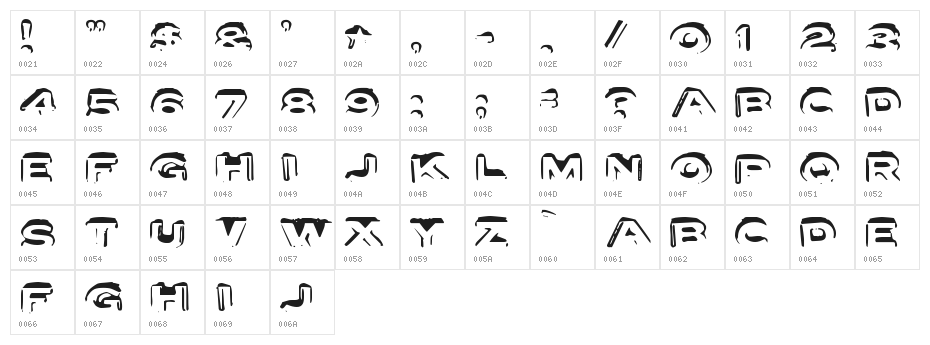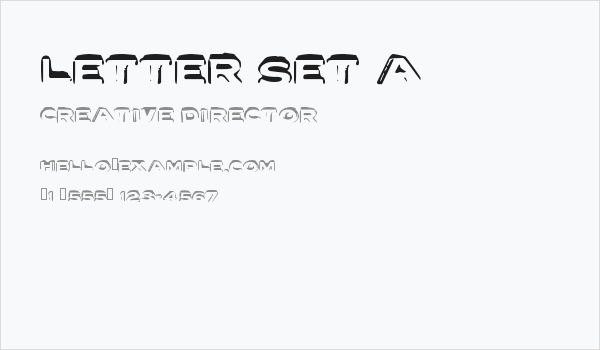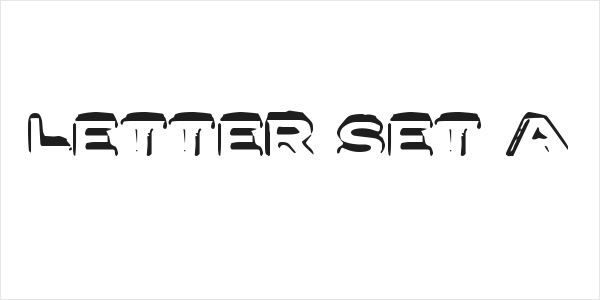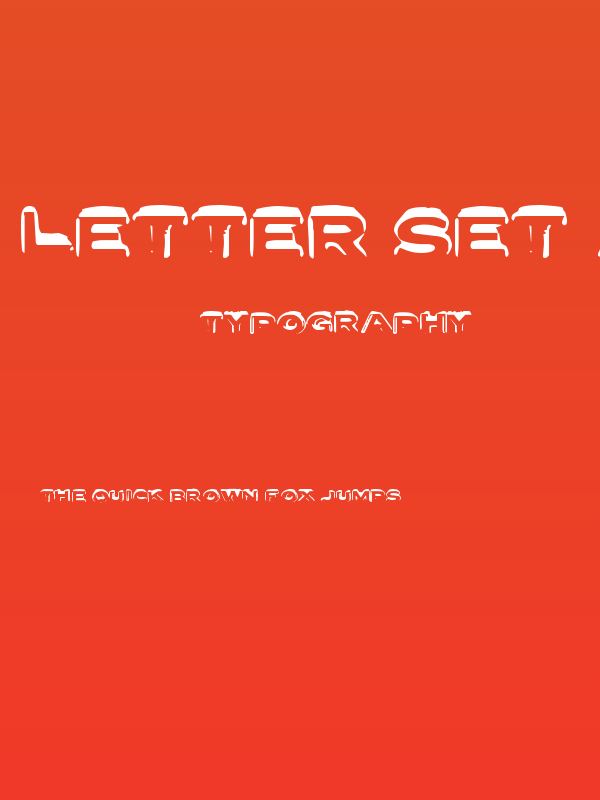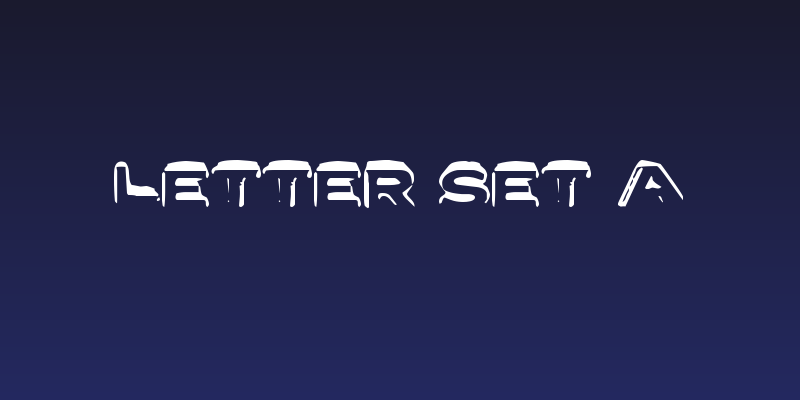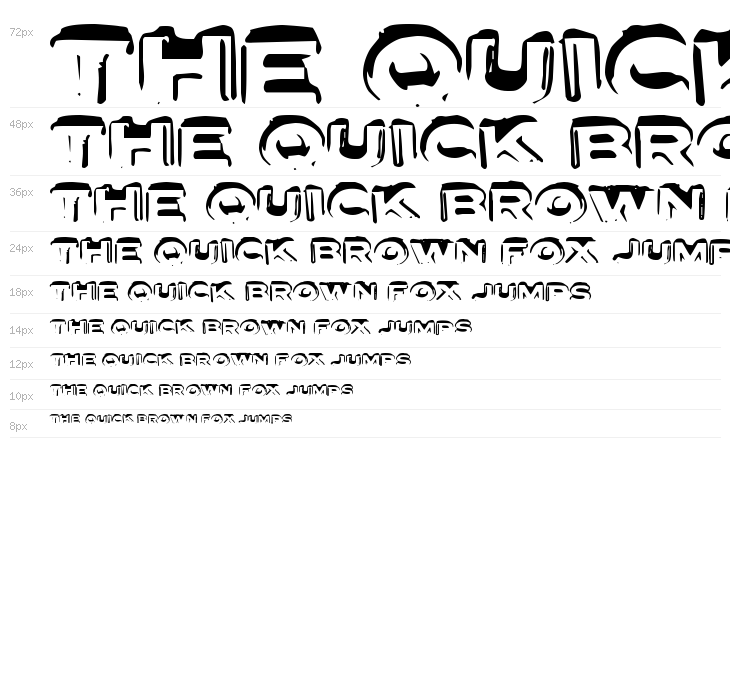
Letter Set A Font
Letter Set A Description
This font features a bold and artistic design with a distressed, grunge-like texture. Each character appears as if it has been partially eroded or splattered with paint, giving it a unique and edgy appearance. The uppercase letters are bold and impactful, while the lowercase letters maintain the same distressed style. Numbers and special characters follow the same design principles, ensuring consistency across all glyphs. This font is ideal for projects that require a strong visual impact and a modern, unconventional aesthetic.
| Overall Style | Modern, Edgy, Grunge |
| Proposed Projects | Ideal for album covers, posters, streetwear branding, and any design needing a bold, artistic touch. |